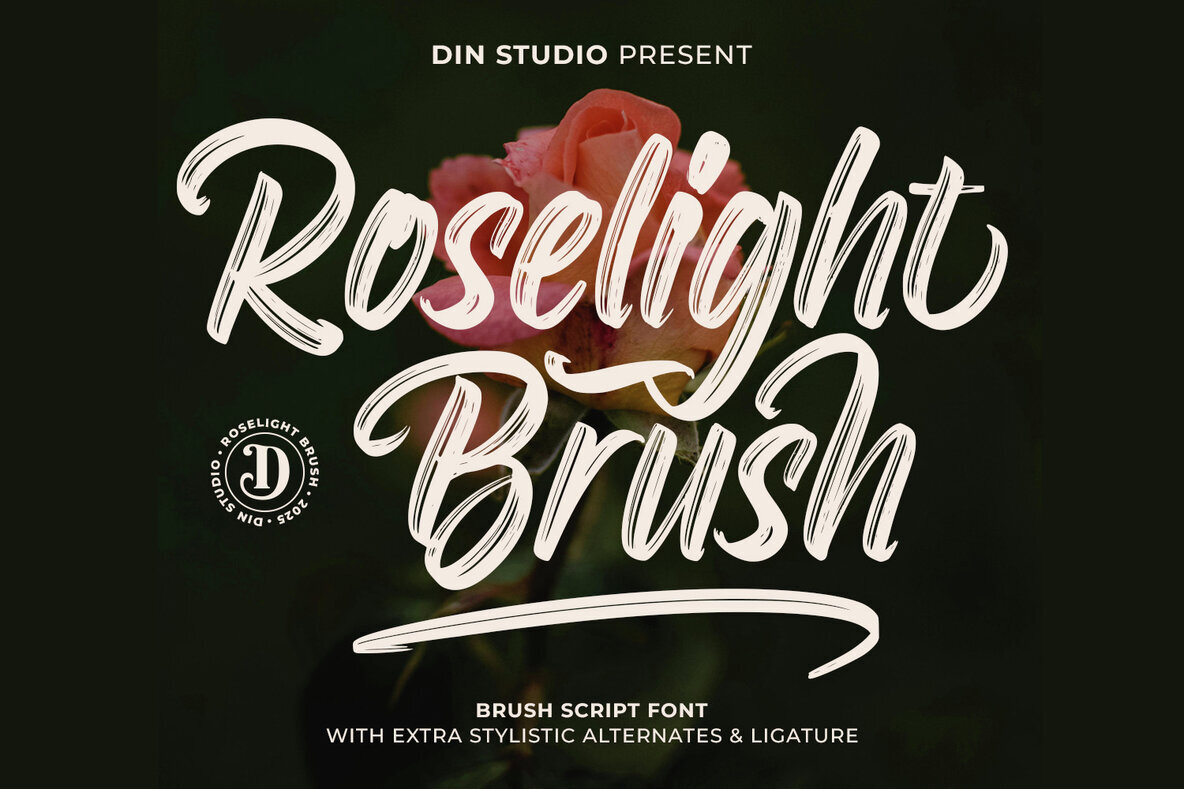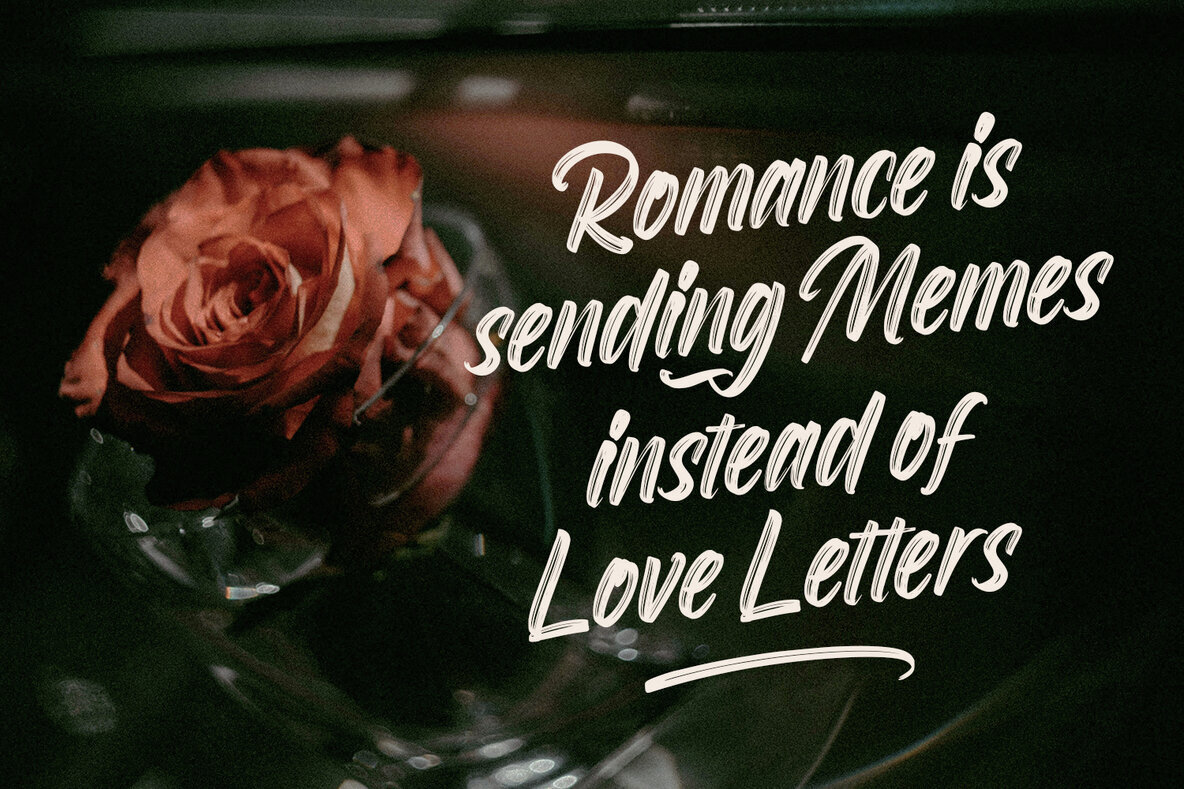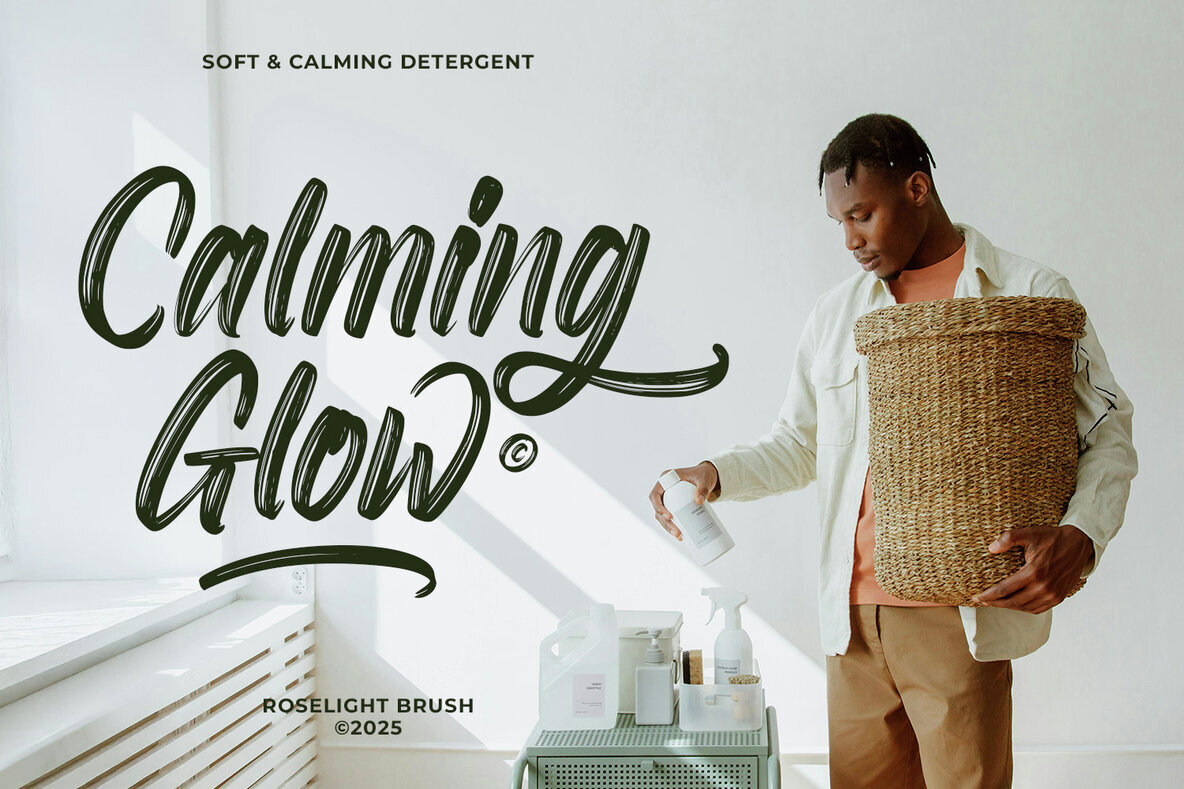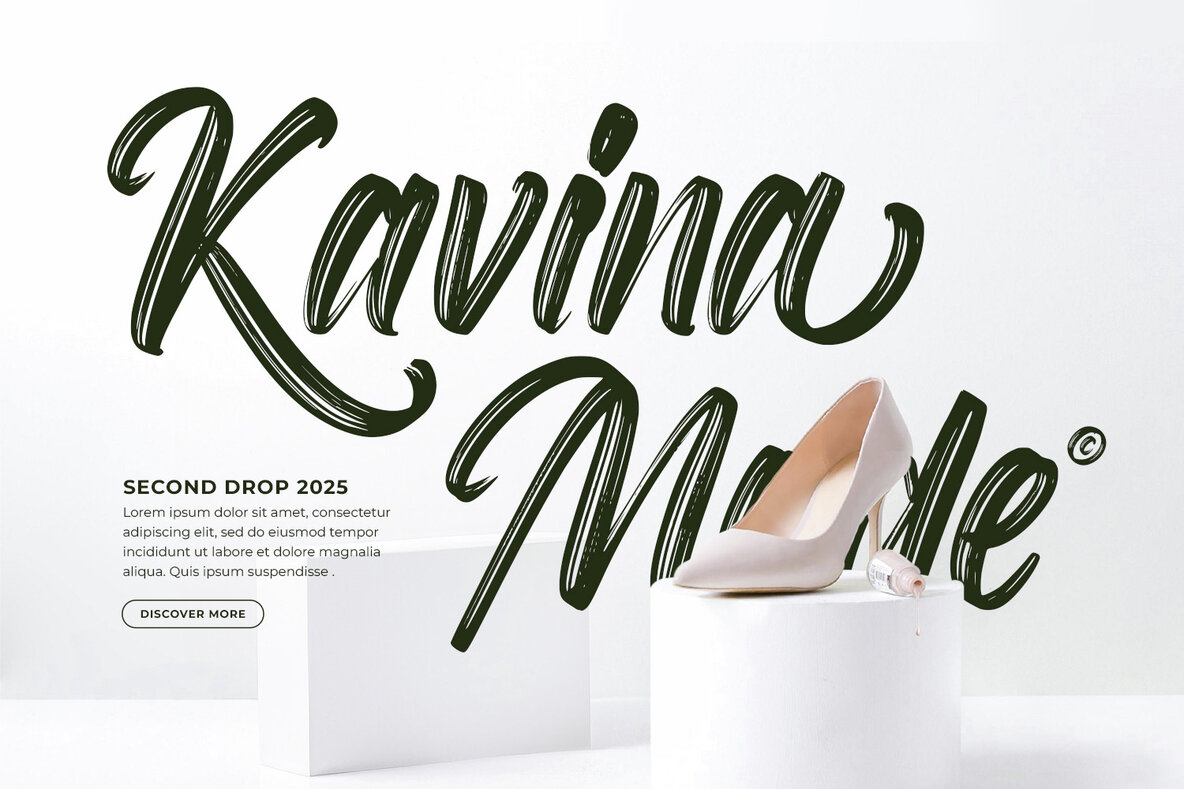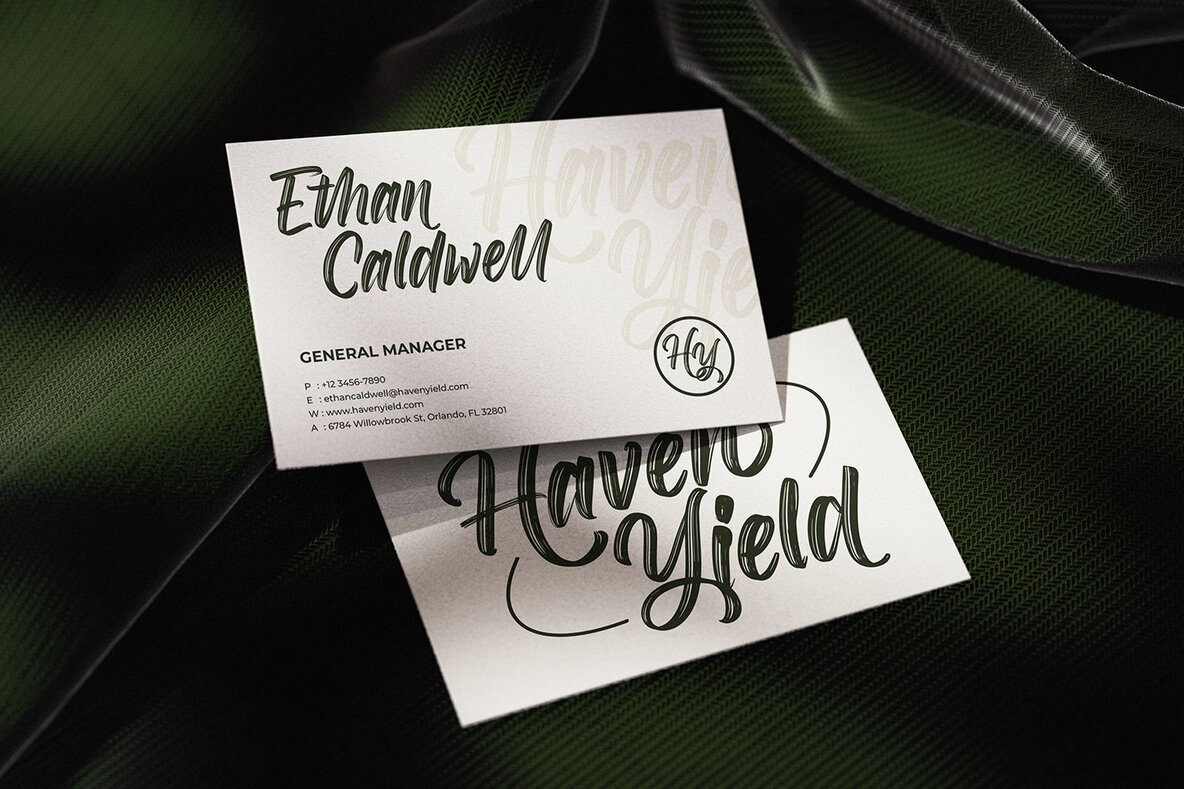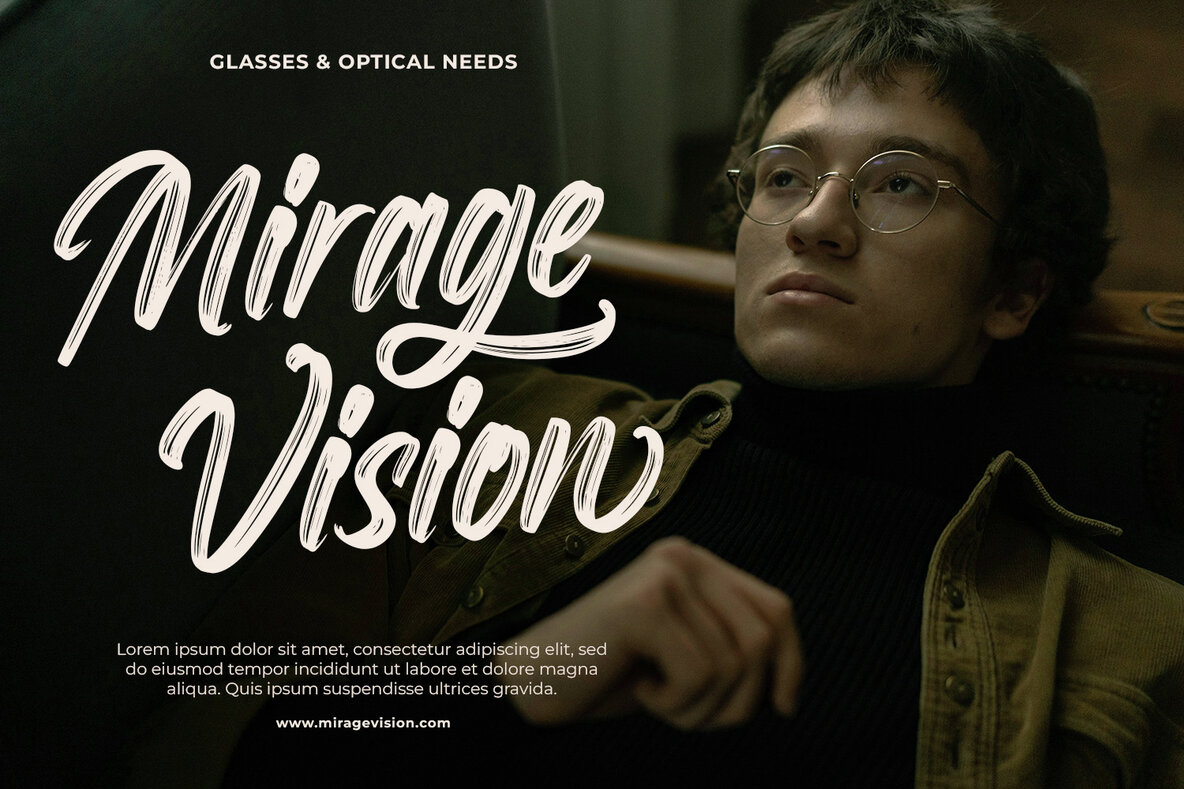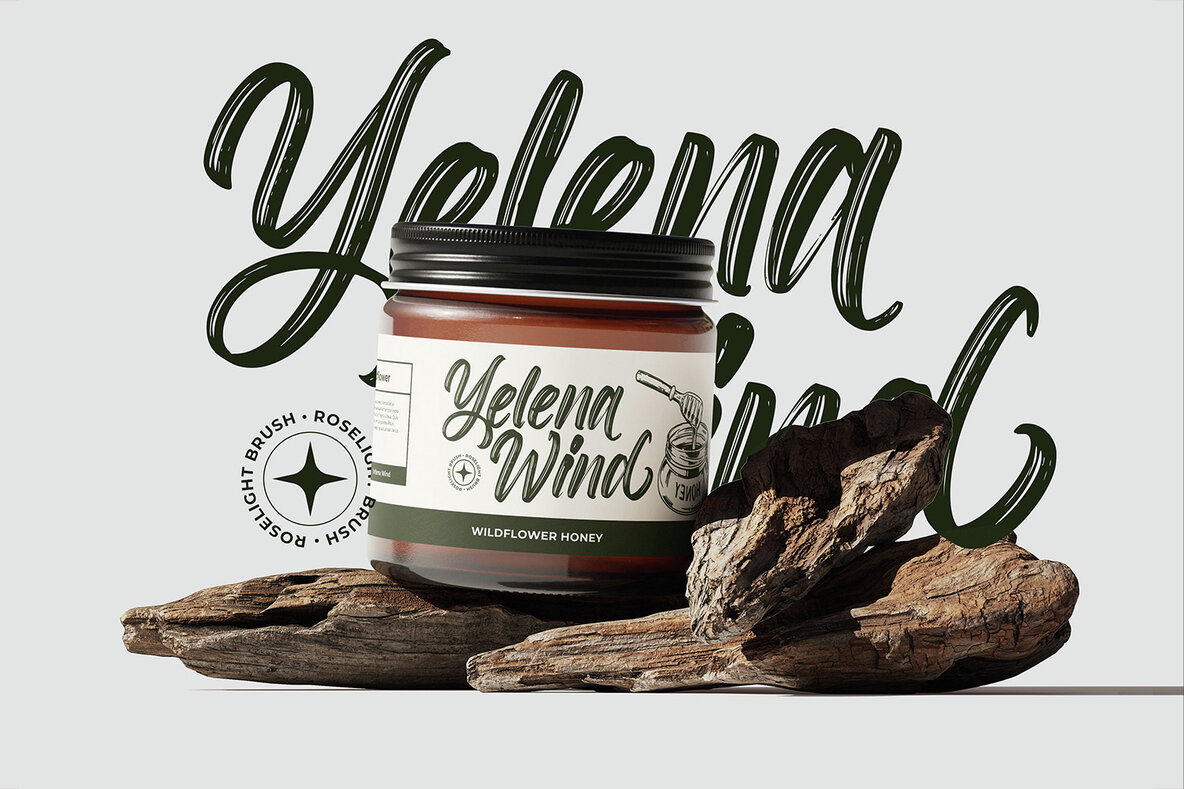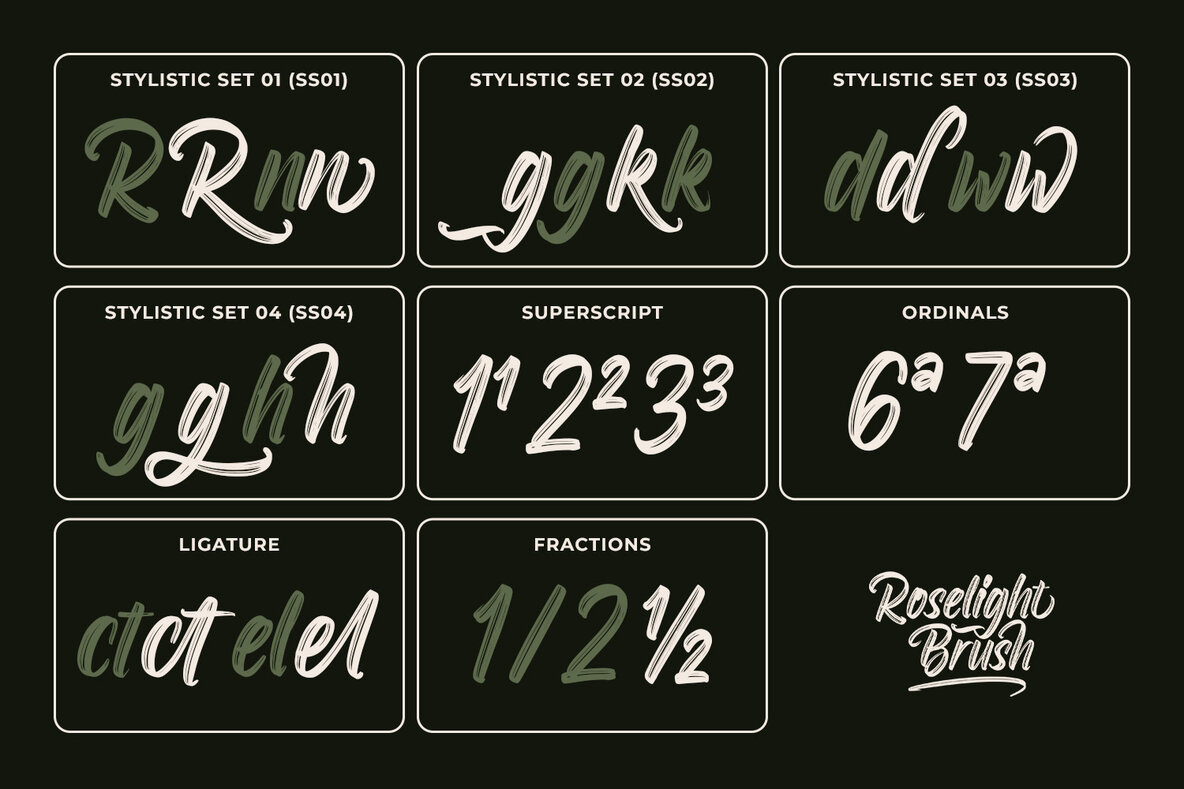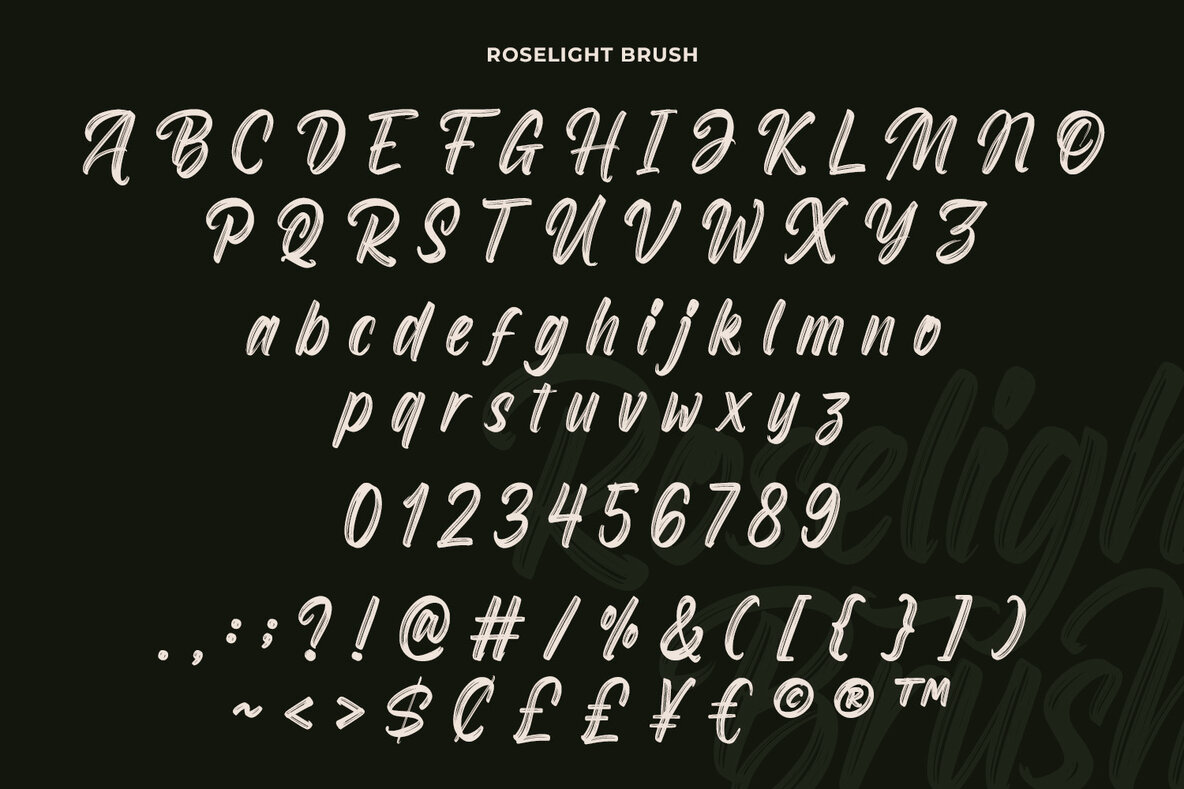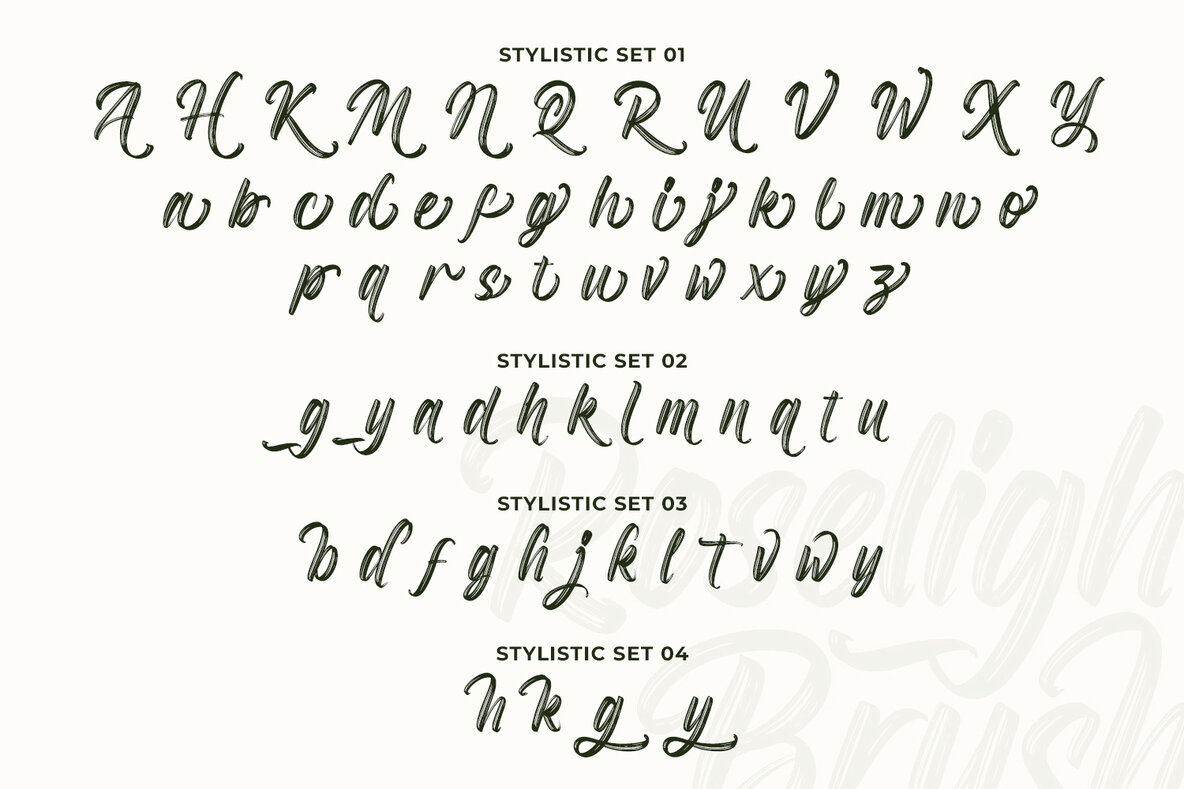
Roselight Brush Font
Roselight Brush stands out for its captivating brush style, perfectly balancing elegance and strength. With a substantial weight, each bold stroke imparts a dynamic yet refined essence. The font's flowing, natural design adds a touch of artistry, making it an excellent choice for those seeking grace and power in their typography. Features: Roselight Brush is ideal for logos, branding, packaging, and invitations. Explore diverse applications by viewing the font preview for inspiration. Create unique designs with this versatile typeface.Roselight Brush: Artistic Elegance and Strength